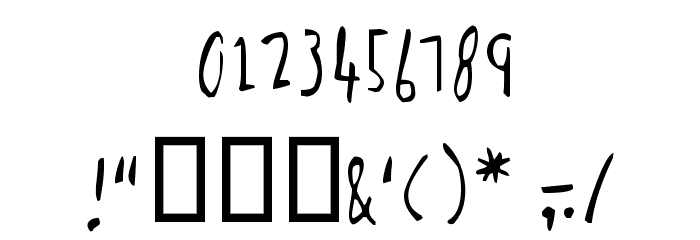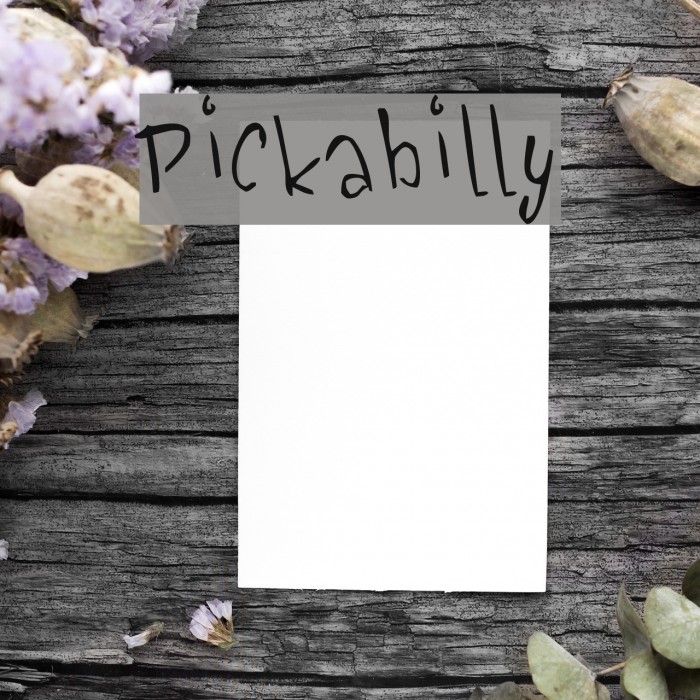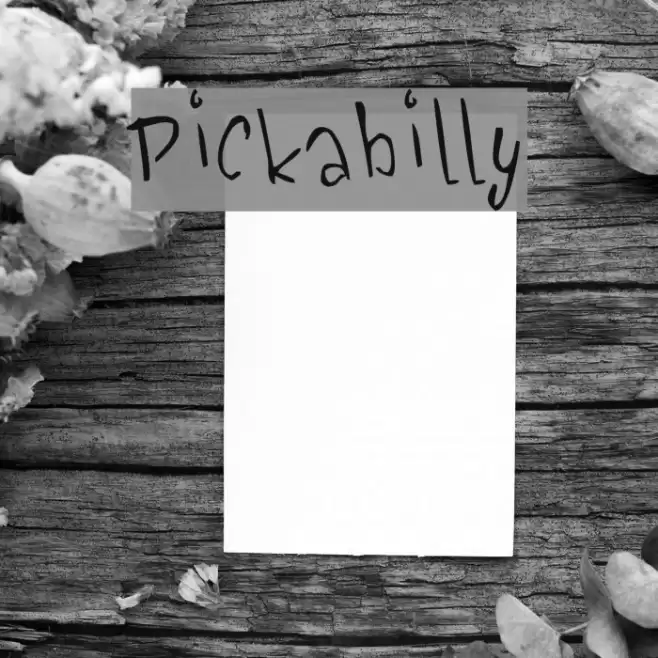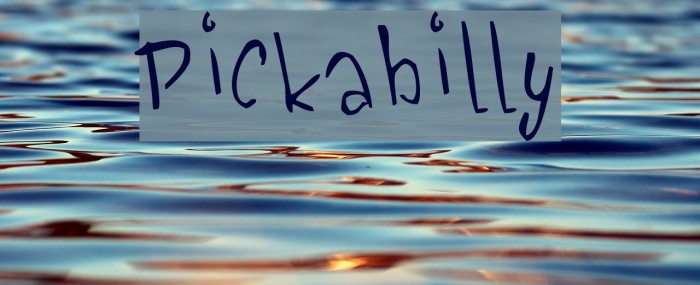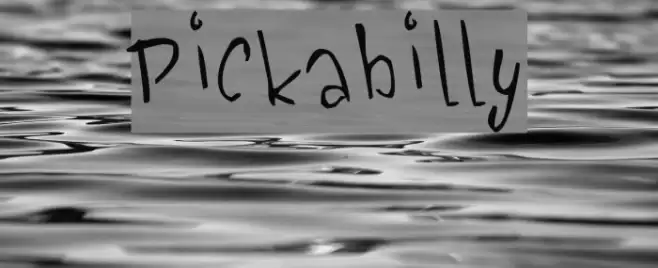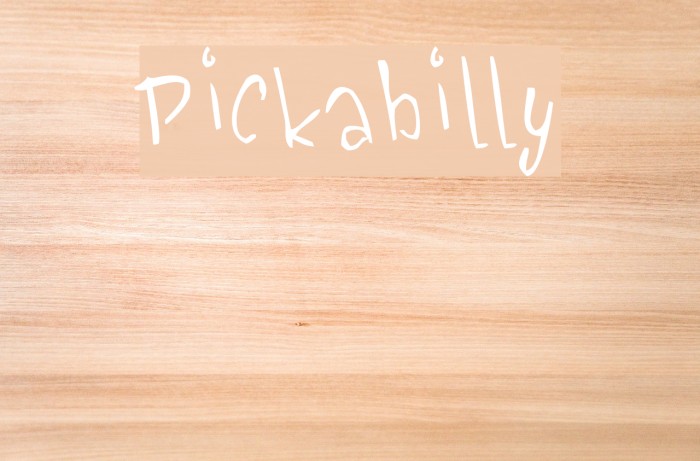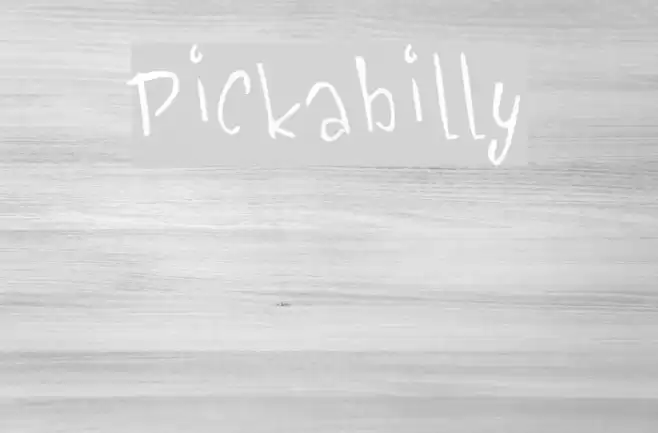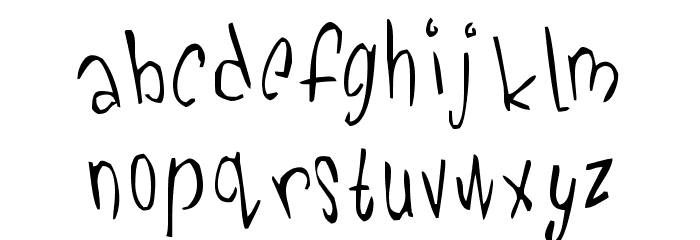
Pickabilly Font
Pickabilly Description
This font exudes a playful and casual handwritten style, characterized by its uneven strokes and slightly irregular letterforms. The uppercase letters are bold and dynamic, with a whimsical flair that suggests movement and spontaneity. The lowercase letters maintain this lively character, with some letters featuring unique loops and curves that add to the font's charm. Numbers are consistent with the overall style, maintaining the same playful and informal appearance. Special characters are creatively designed, fitting seamlessly with the rest of the font. This font is perfect for projects that require a personal touch or a fun, informal vibe.
| Overall Style | Casual, Playful |
| Use Case | Headlines, Informal text, Creative projects |
| Proposed Projects | Ideal for greeting cards, children's books, playful branding, and informal invitations. |